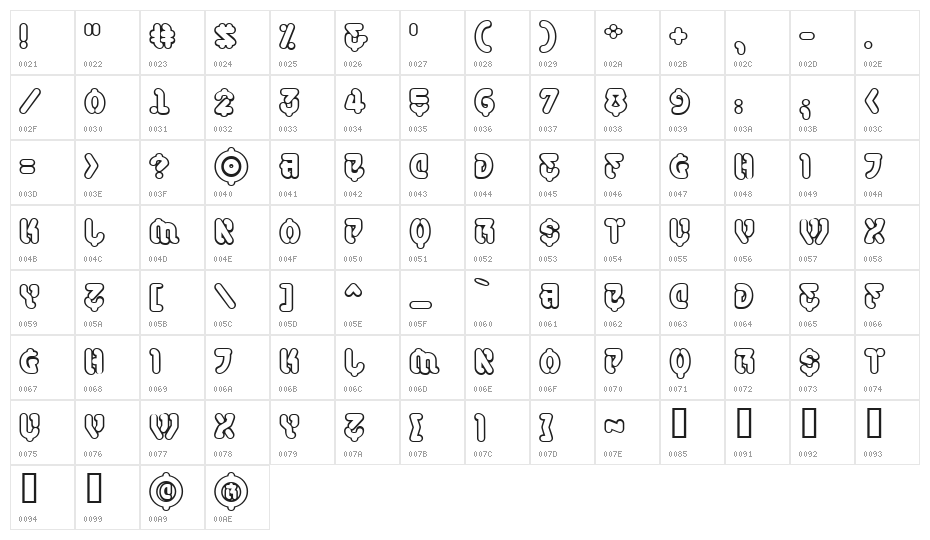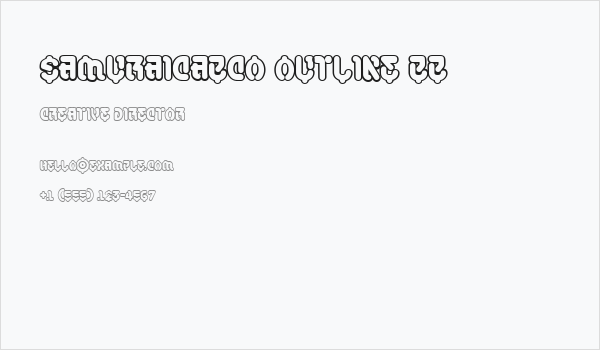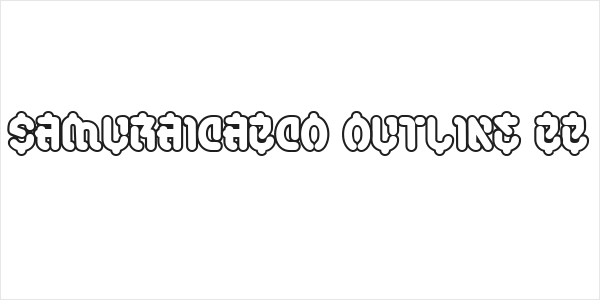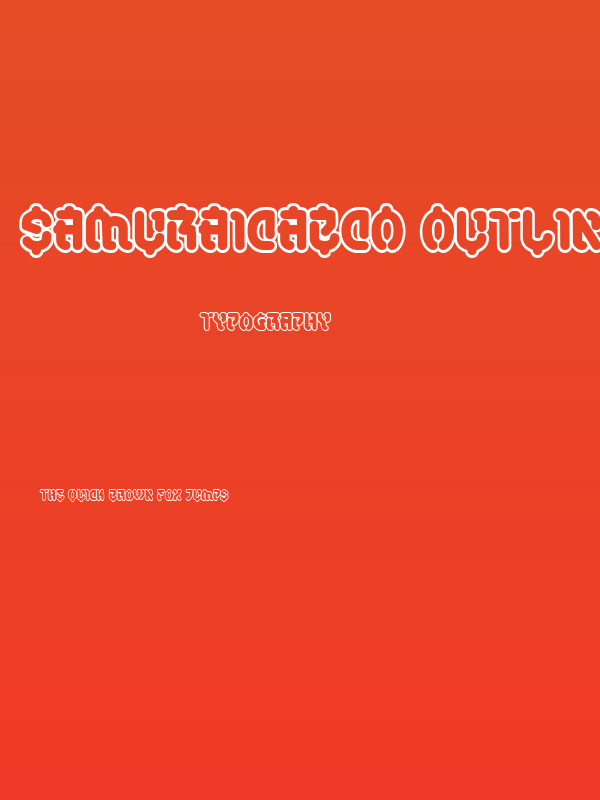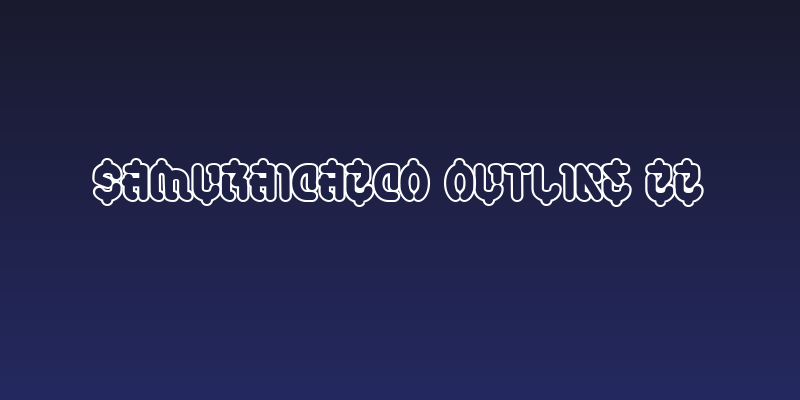
SamuraiCabCo Outline BB Font
SamuraiCabCo Outline BB Description
This font features a bold, playful outline style with rounded edges and a unique, bubbly appearance. Each character is surrounded by a thick border, creating a distinct and eye-catching look. The letters are evenly spaced, maintaining a consistent flow across the text. The font's whimsical design makes it ideal for creative projects that require a fun and engaging aesthetic. Its outline nature allows for versatile use in both digital and print media, where the background can play a role in the overall design.
| Proposed Projects | Ideal for children's books, playful branding, posters, and creative digital media. |